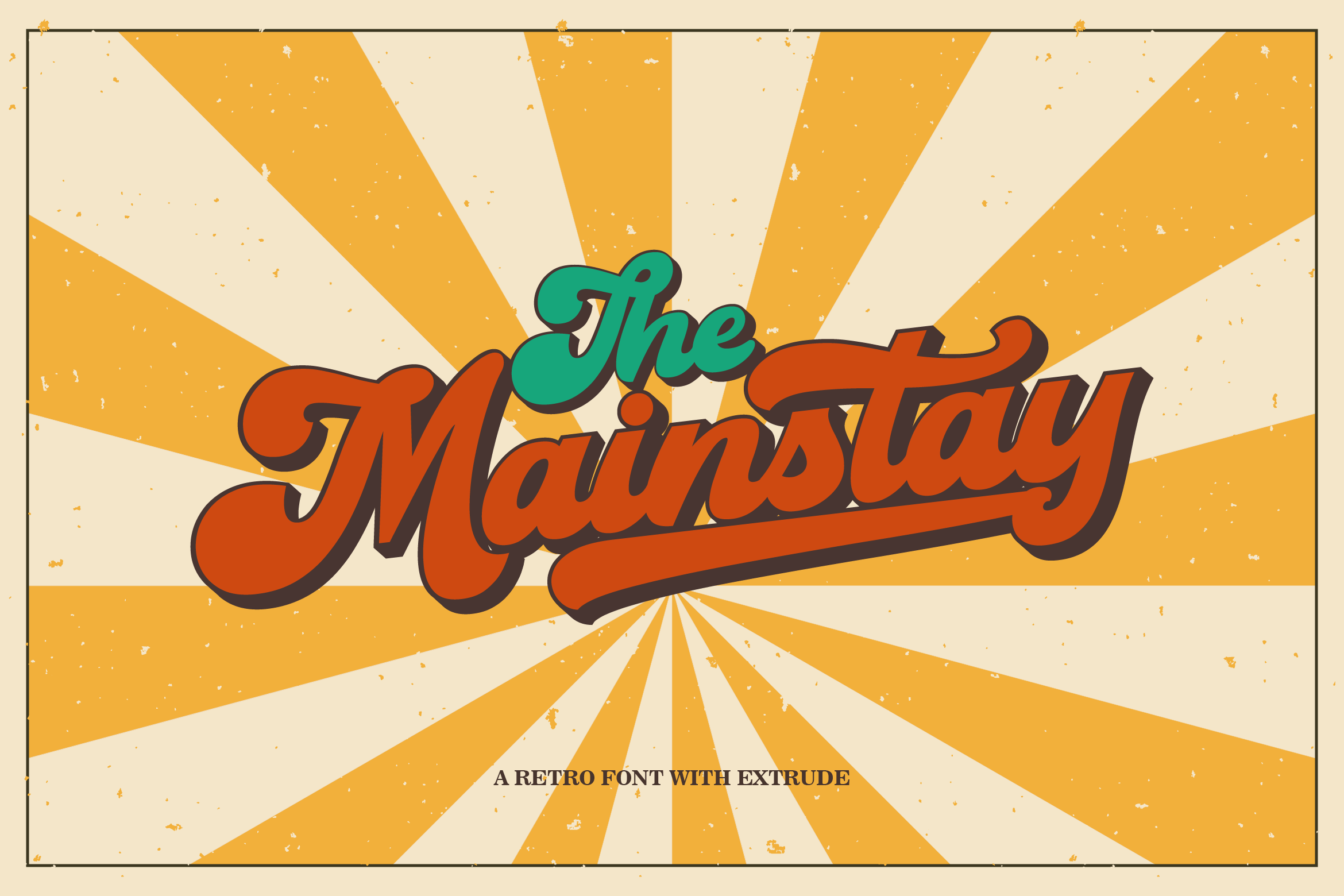
Mainstay Font
About Mainstay
The Mainstay is a bold and retro styled handwritten font. This font reads as strong, confident, and dynamic and can add tons of nostalgic character to your designs.
The Mainstay is perfect for branding projects, logo, social media posts, advertisements, product packaging, product designs, label, photography, watermark, stationery and any projects.